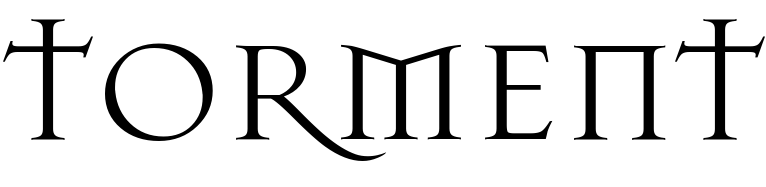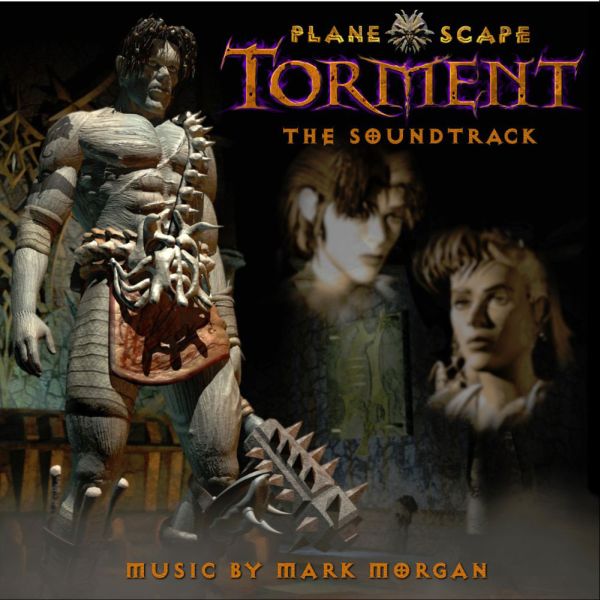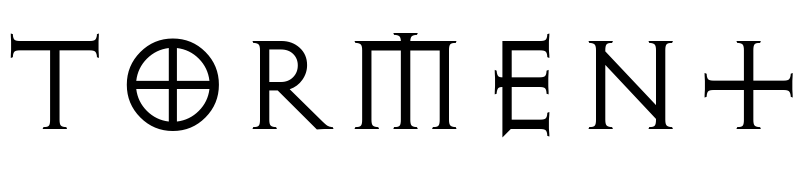
Planescape: Torment Font
Fonts in UsePlanescape: Torment is a classic role-playing video game developed by Black Isle Studios and released in 1999 for PC. It follows the journey of the amnesiac "Nameless One" in the surreal world of Planescape.
It is likely that the game's title was created using Mason Serif Regular, a typeface designed by Jonathan Barnbrook in 1992. The Mason typeface includes both serif and sans-serif versions, each with regular and bold options. Further information can be found here.